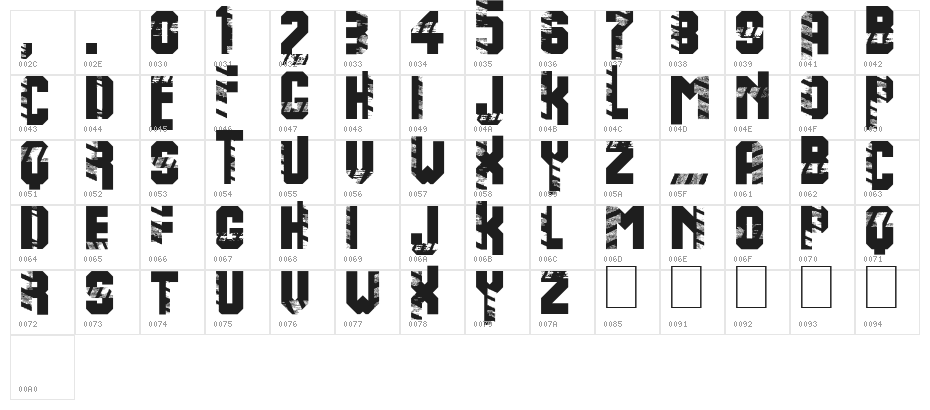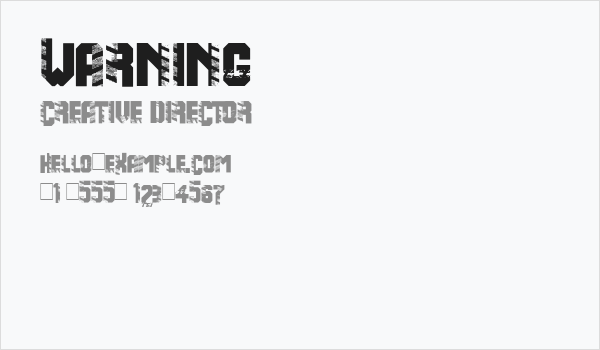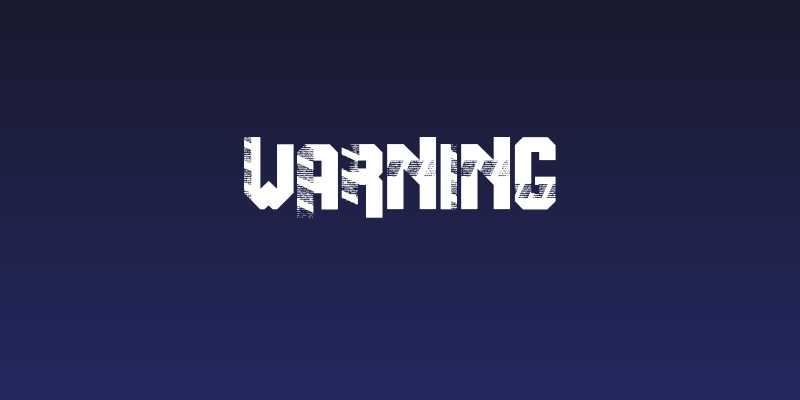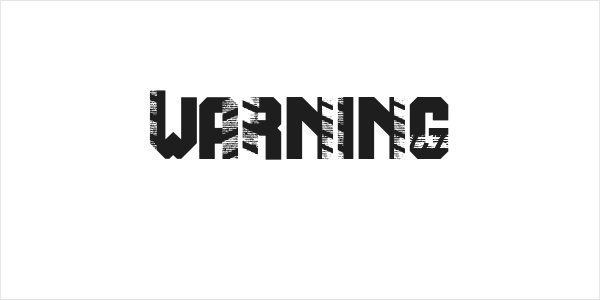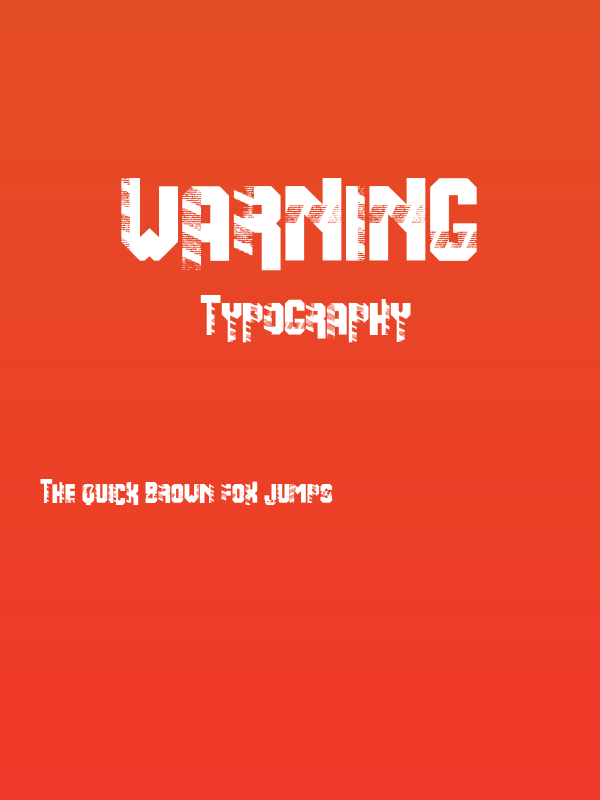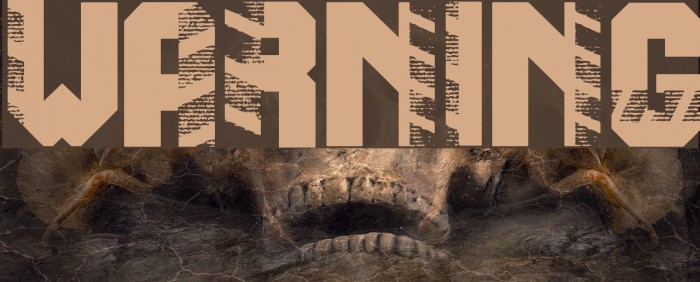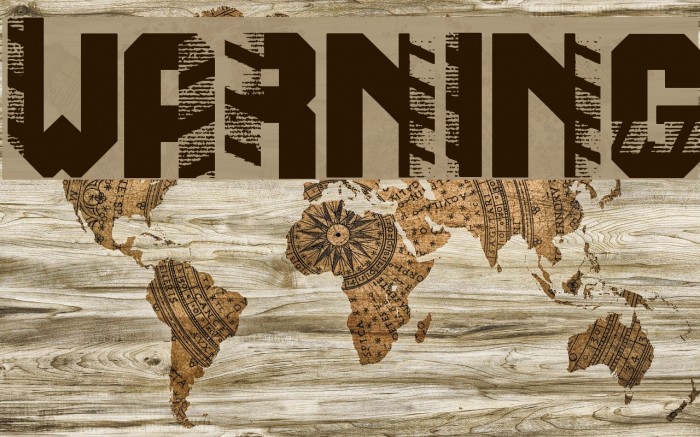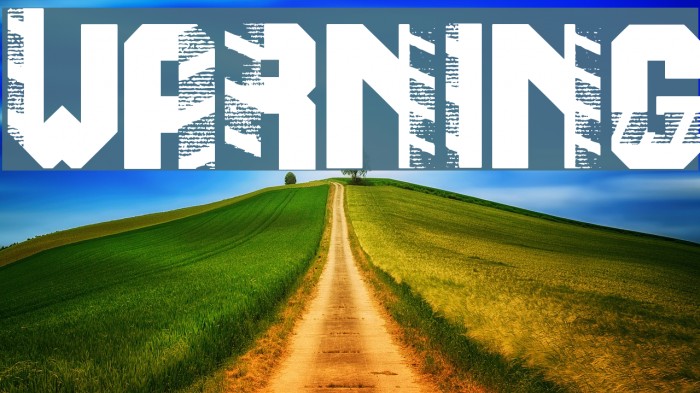
Warning Font
Warning Description
This font features a bold and striking design with a distressed, glitch-like effect that gives it a modern and edgy appearance. The characters are blocky and geometric, with a high level of contrast between the thick, solid areas and the fragmented, textured sections. This unique style creates a sense of movement and energy, making it ideal for attention-grabbing designs. The uppercase and lowercase letters maintain a consistent style, while the numbers and special characters complement the overall aesthetic. The font's distinctive look is perfect for projects that require a bold statement.
| Proposed Projects | Perfect for album covers, posters, video game graphics, and urban-themed branding. |